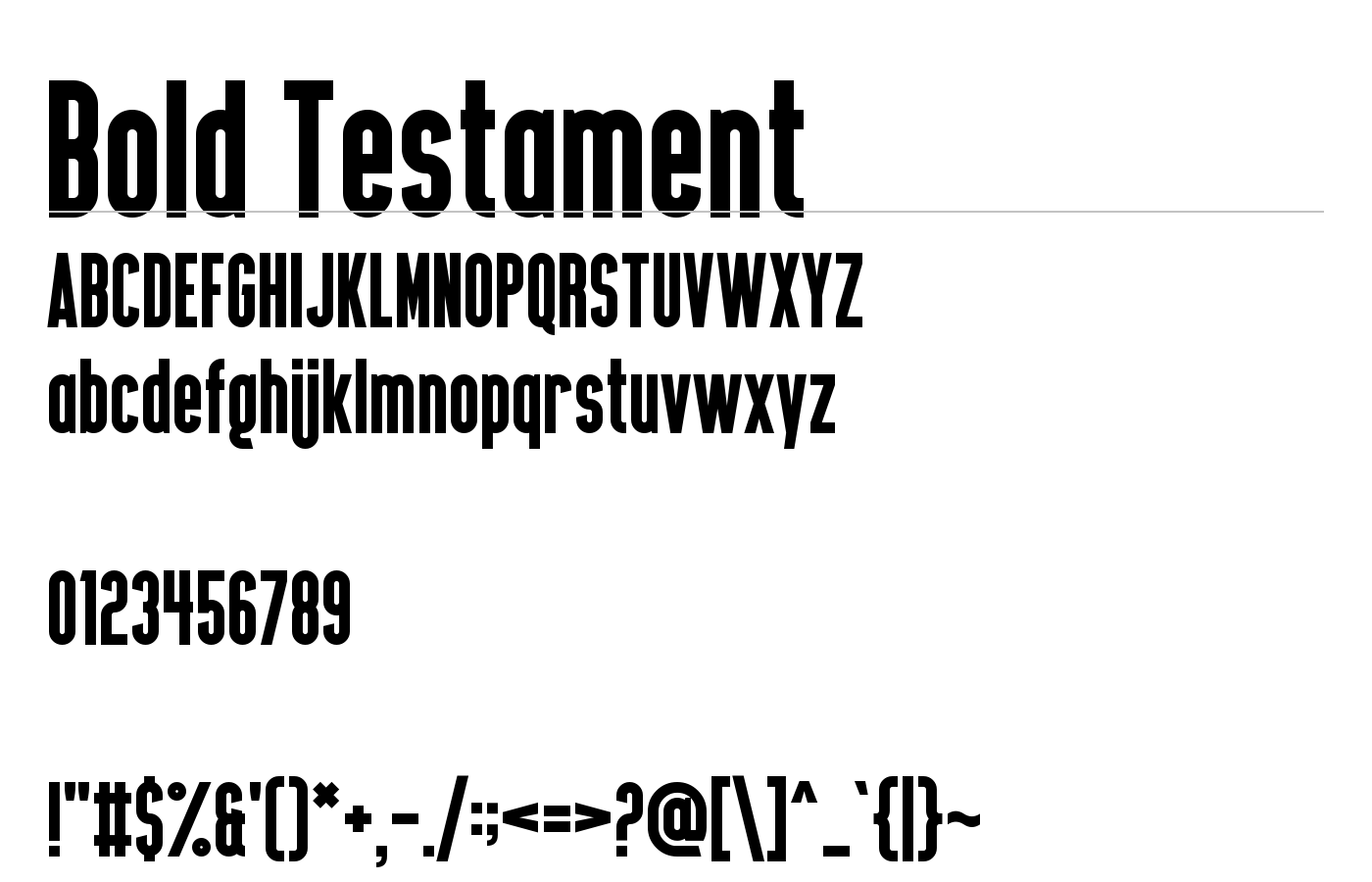
Bold Testament is a tall, narrow sans serif typeface with a strong, bold weight and a uniform stroke that gives it a clean, modern look. Its condensed style and straightforward letterforms make it ideal for impactful headlines, logos, and branding that require a confident, assertive presence. This font works especially well in designs where clarity and a commanding tone are needed, such as posters, fashion branding, or editorial titles.
Bold Testament Font
About Bold Testament Font